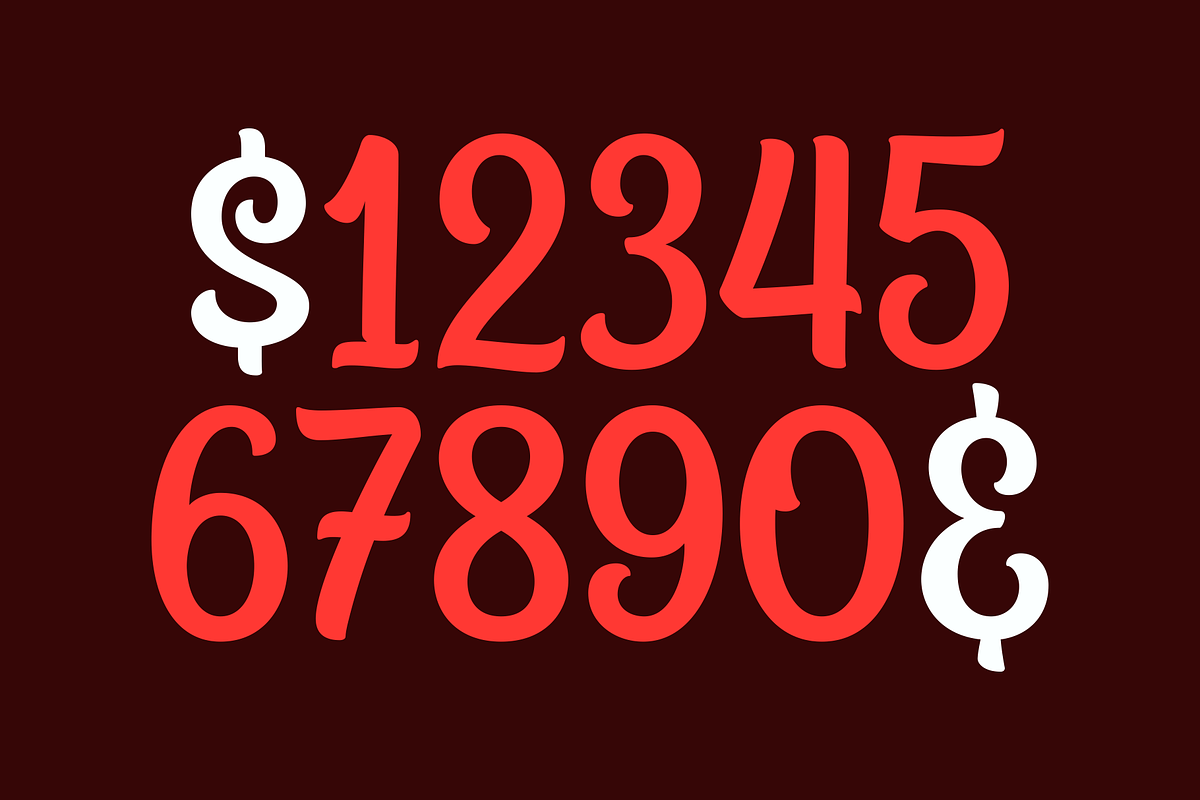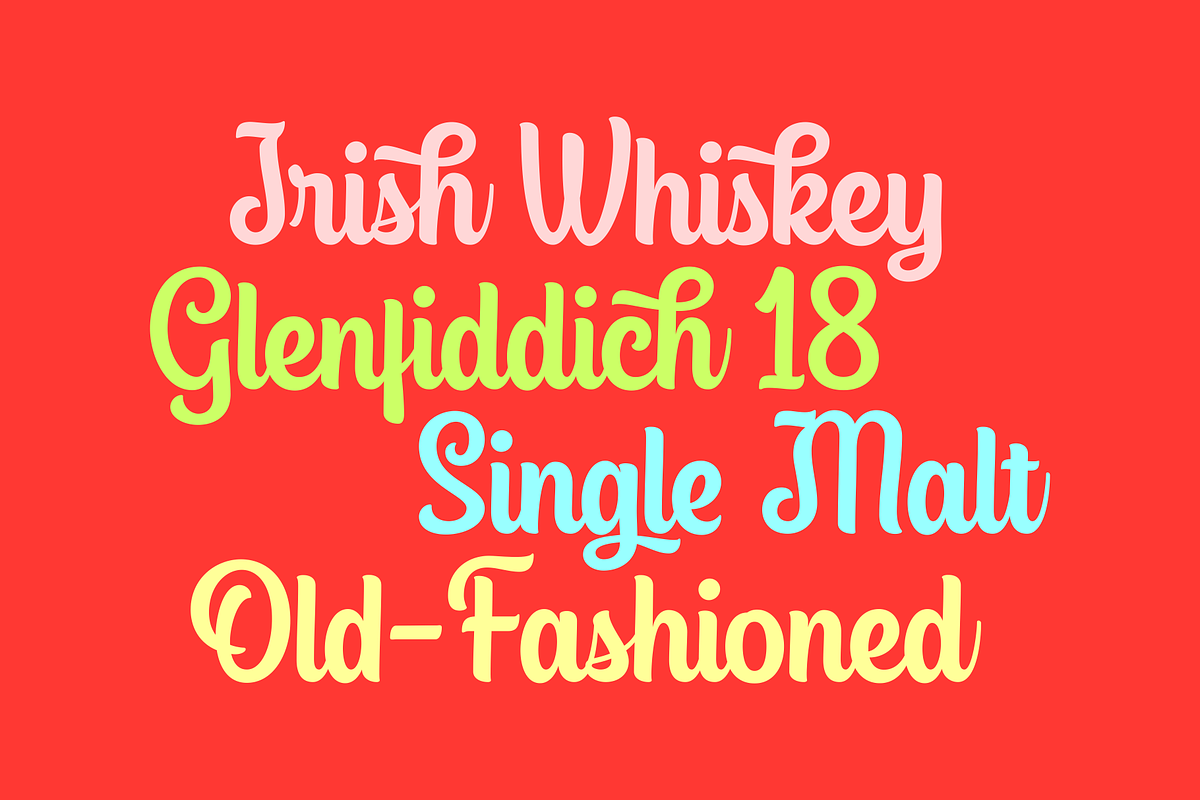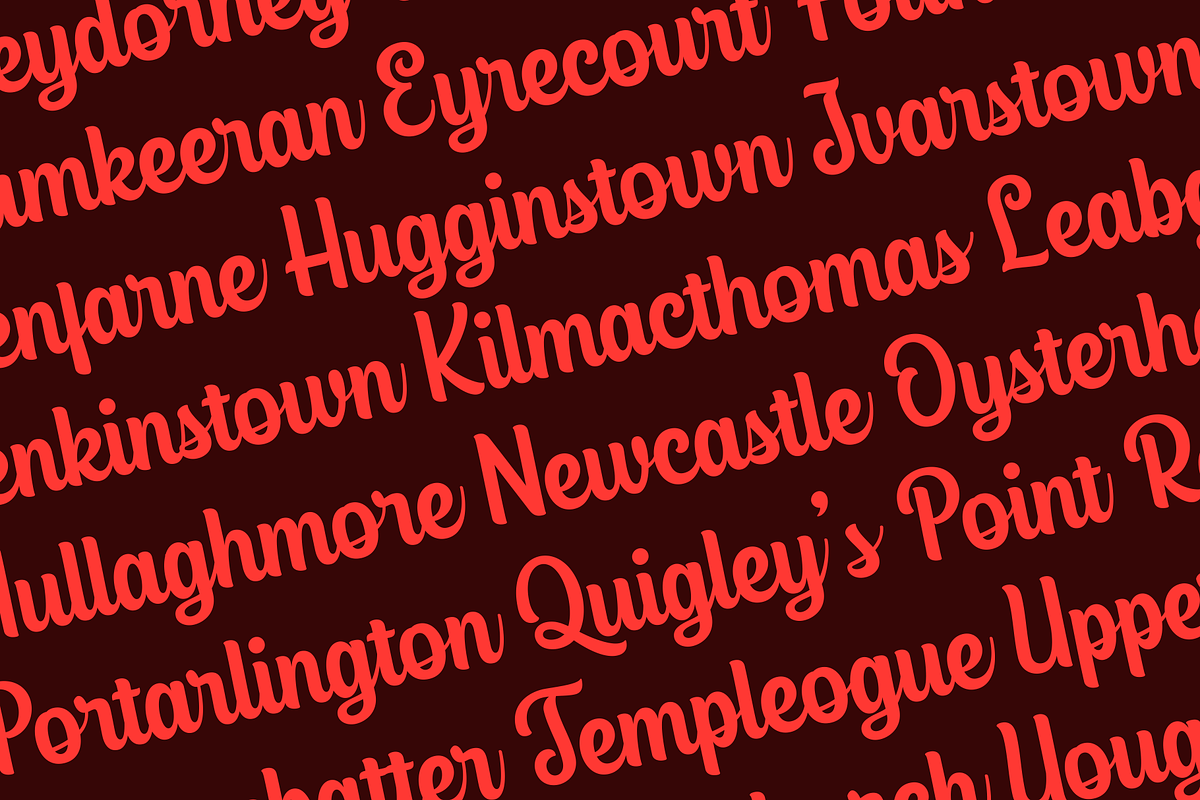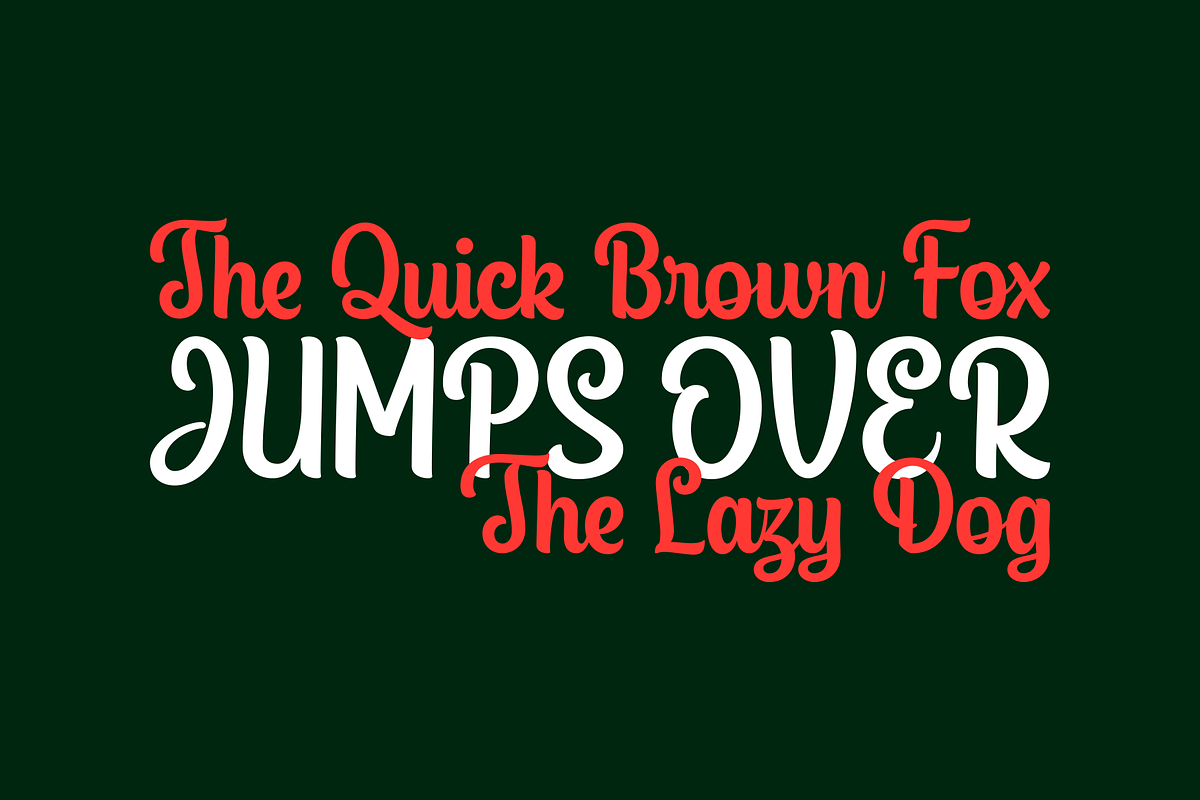
Glassgow Script
Introducing our latest font in 2020; Glassgow Script. A straight forward and towering script that offers you natural hand-lettering experience. This bold and clean font were crafted digitally using basic shapes that often used in signpainting techniques. We're huge fans of clean lines and crisp edges (like you!), so we make sure the letterforms are well-shaped, and delivered perfectly to your screen. Glassgow Script suits best for logotype, poster/t-shirt designs, food/beverage labels, quote writings, greeting cards, wedding invitations, and many more.
- Standard characters, numerals, and punctuations (OpenType Standard encoding),
- Multilingual character supports (Afrikaans, Albanian, Catalan, Croatian, Czech, Danish, Dutch, English, Estonian, Finnish, French, German, Hungarian, Icelandic, Italian, Lithuanian, Maltese, Norwegian, Polish, Portuguese, Slovenian, Spanish, Swedish, Turkish, Zulu),
- OpenType features such as alternate characters, stylistic sets,swashes, initial and terminal forms, ligatures, etc,